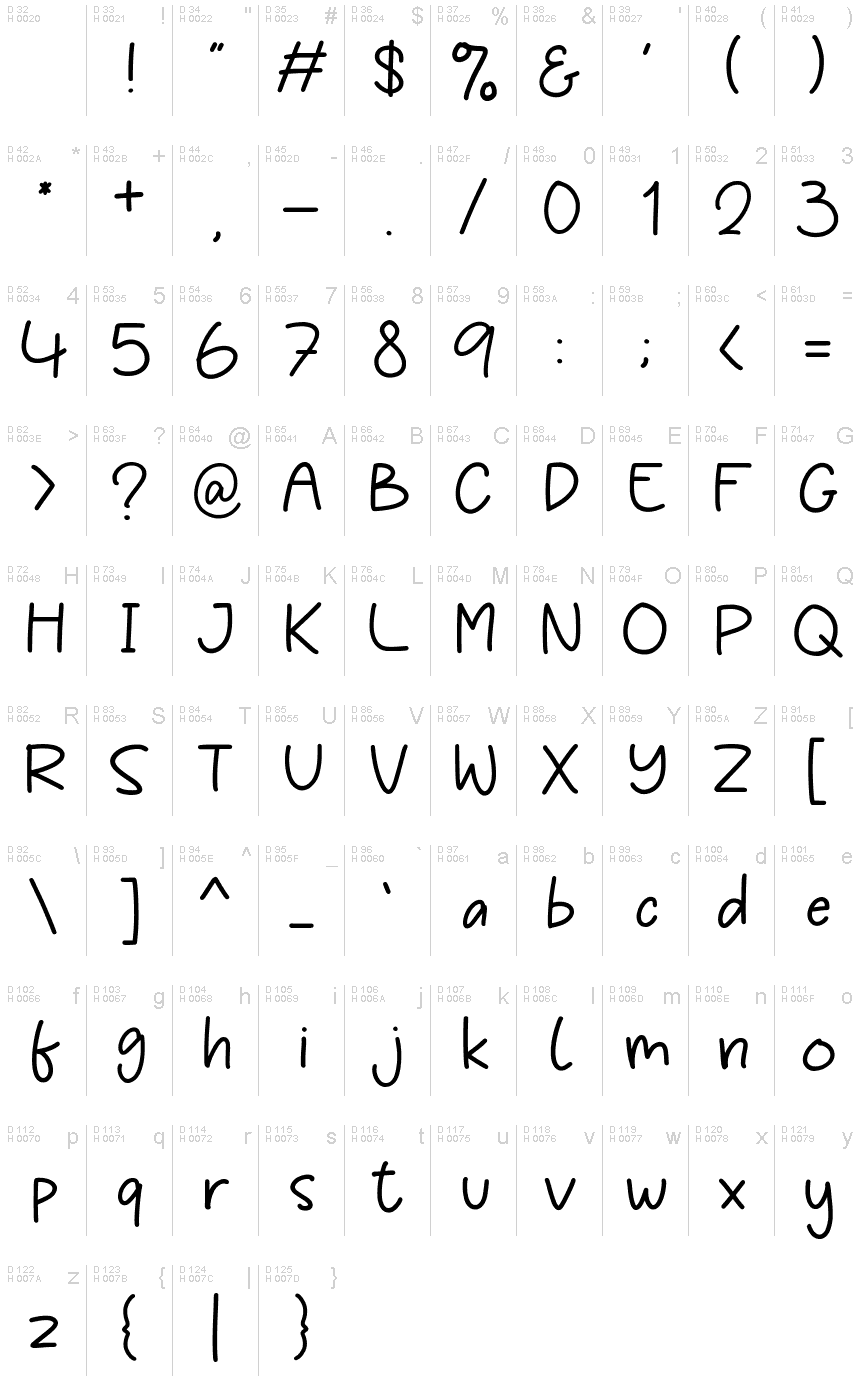
Bumblemilk Demo
Introducing Bumblemilk - the lighthearted, handwritten font from Qwrtype Foundry. With its unique, flowing curves and playful letterforms, Bumblemilk makes a statement! Perfect for adding a touch of whimsy to logos, greeting cards, invitations and other creative projects. It's an ideal choice for those looking to add a bit of charm and personality to their designs. Bumblemilk is sure to bring an extra special touch!